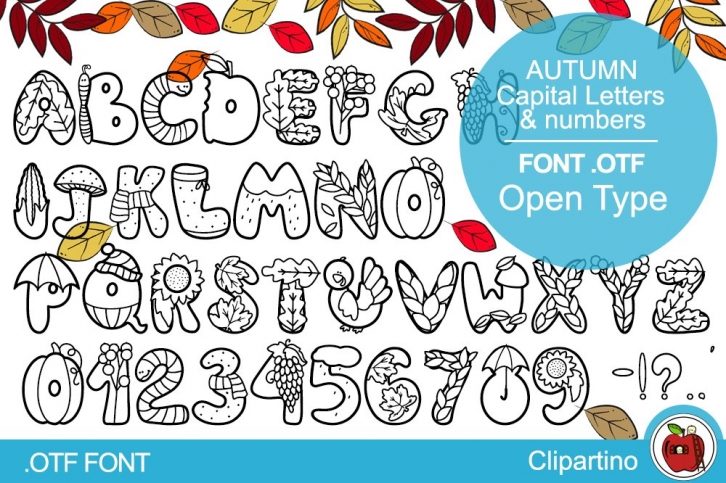
Autumn Open Type-Capital Letters & numbers is a trendy and unique font with an authentic style. It was designed by Clipartino and it's a great choice for creative people who need such a font. It was released on July 31, 2021 and the file size is 20.3 MB. Autumn Open Type-Capital Letters & numbers will add an organic vibe to any design idea!